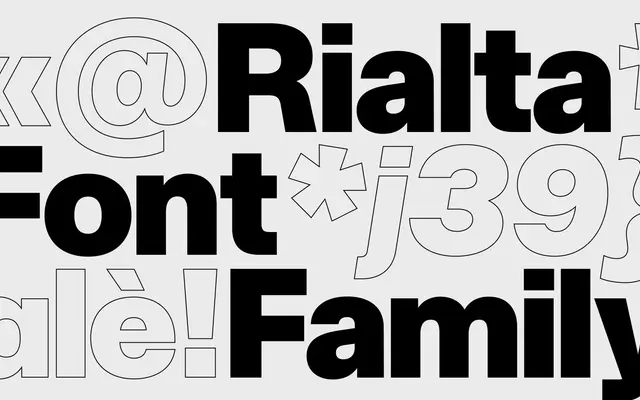
Rialta
A serif typeface from Copenhagen foundry Playtype, suited to editorial and long-form text settings.
Rialta is a serif from Playtype, the Copenhagen-based foundry known for clean, considered type design. The scraped page content offers little technical detail, but the typeface sits within Playtype's broader catalogue of refined, editorially focused faces. It reads as a text-weight serif intended for considered typographic work rather than display use.
Based on the page context referencing couture and craftsmanship, and Playtype's general output, Rialta appears to be a refined serif; classified as transitional given typical characteristics of Playtype's editorial serif releases.